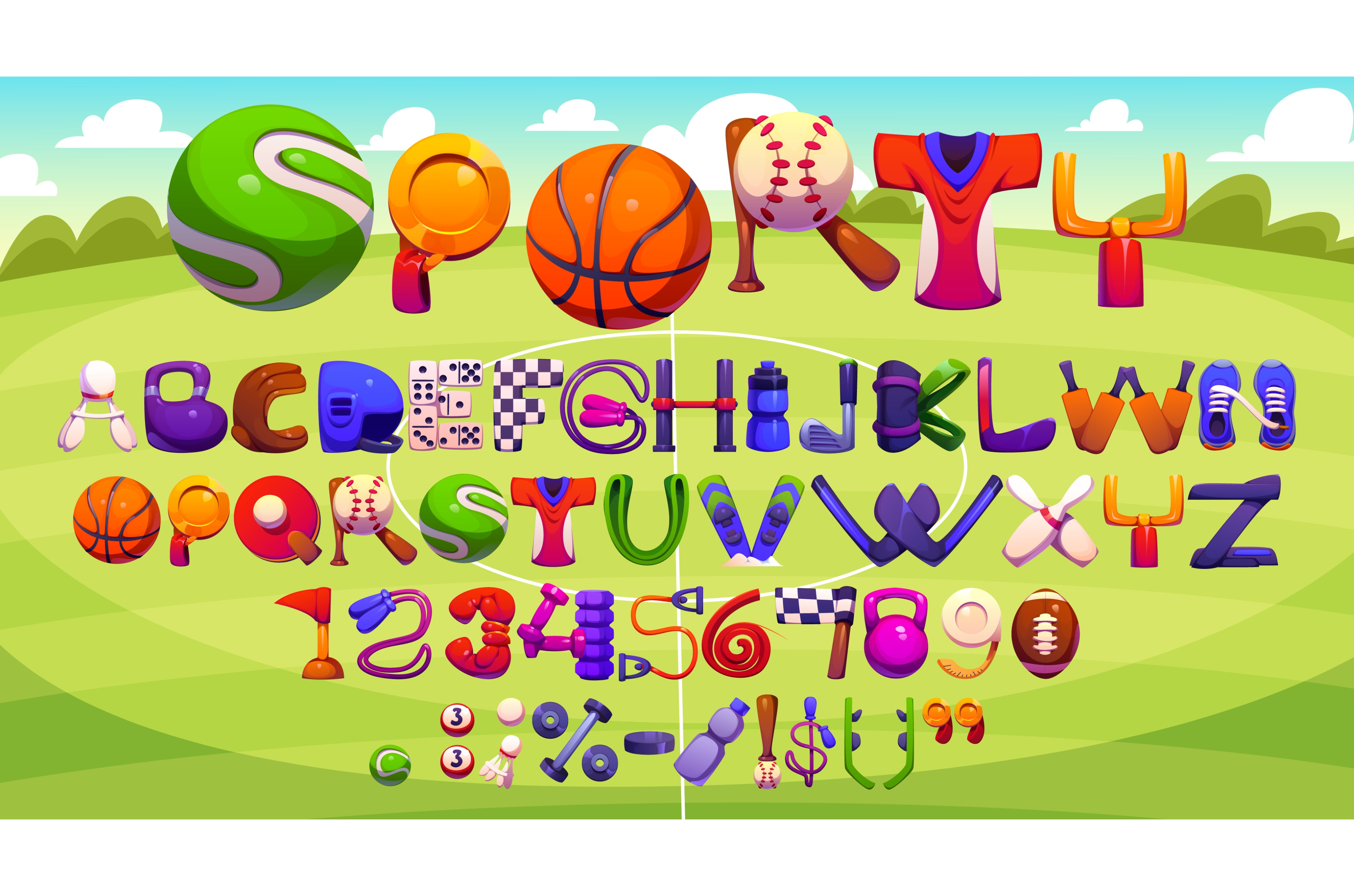
Cartoon sport font athletic typeface
Cartoon sport font, athletic typeface letters and numbers vector typography. Sport equipment font or gym type alphabet set with english abc letters and numbers of balls, bats, rackets and dumbbells